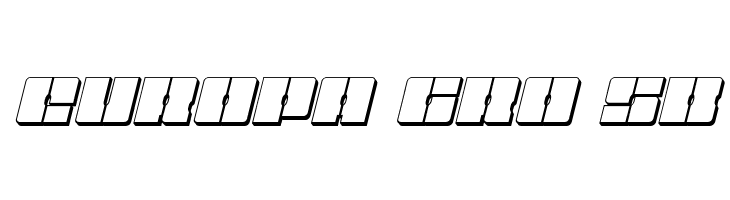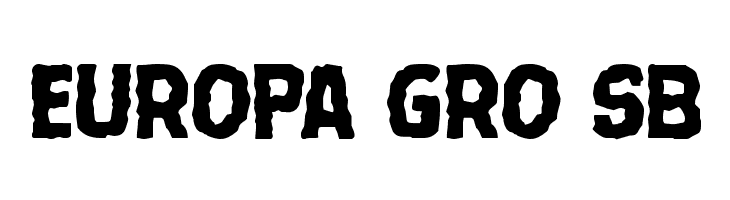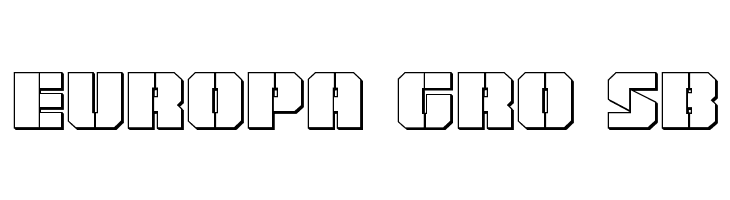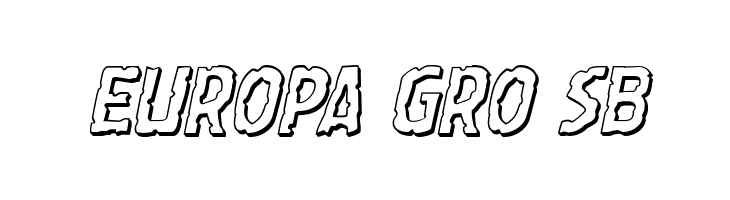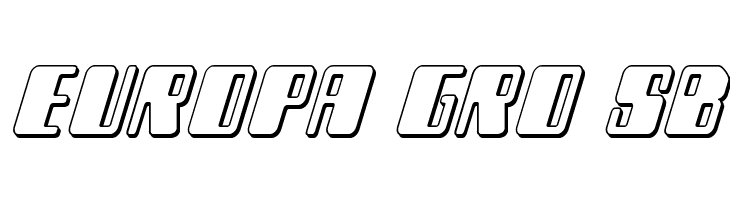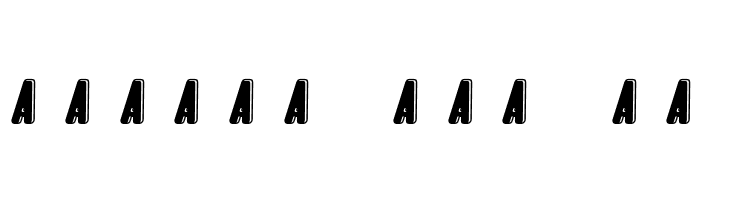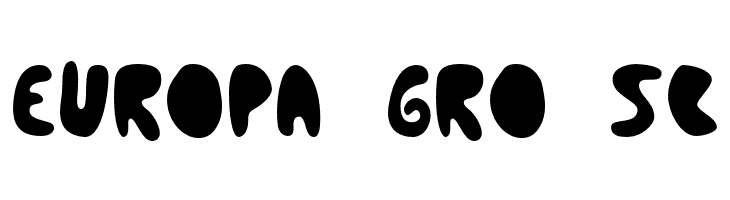
A bold, 3D italic font with a futuristic and geometric style.
A bold, rugged font with jagged edges and a distressed, hand-drawn style.
A bold, 3D geometric font with a futuristic and angular design.
A bold, 3D italic font with a playful, comic book style.
A bold, 3D italic font with a futuristic and dynamic style.
A bold, distressed font with an eroded, industrial look.
A bold, italic font with a playful shadow effect and rounded characters.
A bold, 3D sans-serif font with a shadow effect for modern, eye-catching designs.
A bold, playful font with rounded edges and a hand-drawn style.
A bold, playful font with thick, rounded strokes and a whimsical, hand-drawn style.